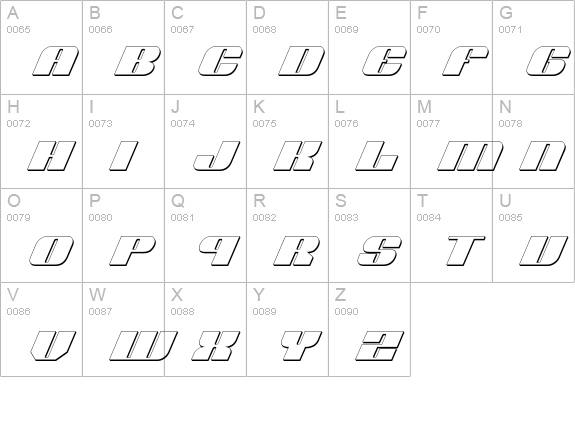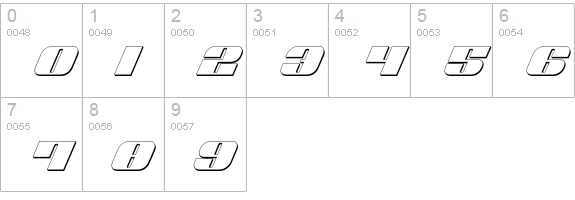
Nolo Contendre Shadow Italic is a distinctive, italic variant in the Nolo typeface family \xE2\x80\x94 well suited to design and typography projects.
Nolo Contendre Shadow Italic font is a stylish and elegant typeface that exudes sophistication and modernity. Its sleek and slanted design adds a touch of drama and flair to any project, making it perfect for headlines, logos, and branding materials. The unique shadow effect gives the text a three-dimensional appearance, adding depth and visual interest. What sets Nolo Contendre Shadow Italic font apart is its seamless blend of classic elegance and contemporary style. It strikes the perfect balance between traditional and modern design elements, making it versatile and suitable for a wide range of design applications. Not only does Nolo Contendre Shadow Italic font look stunning, but it is also incredibly easy to read, ensuring that your message gets across clearly and effectively. Whether you're designing a website, creating a poster, or crafting a social media post, this font will help you make a lasting impression on your audience. Best of all, Nolo Contendre Shadow Italic font is freely available to download at FontsMarket.com. So why wait? Add this beautiful and eye-catching typeface to your font collection today and elevate your design projects to the next level.